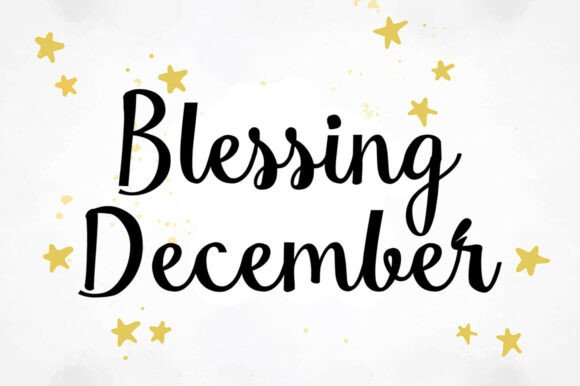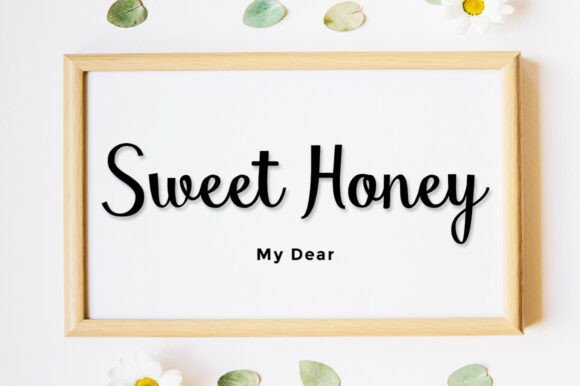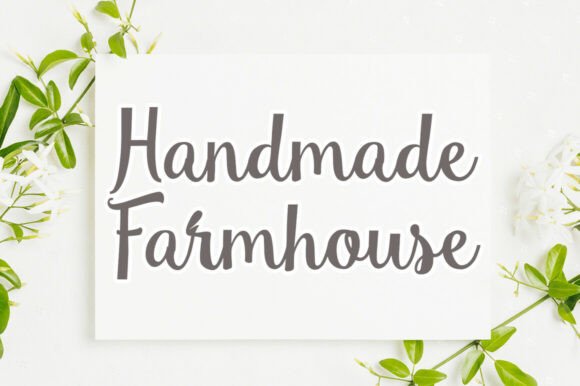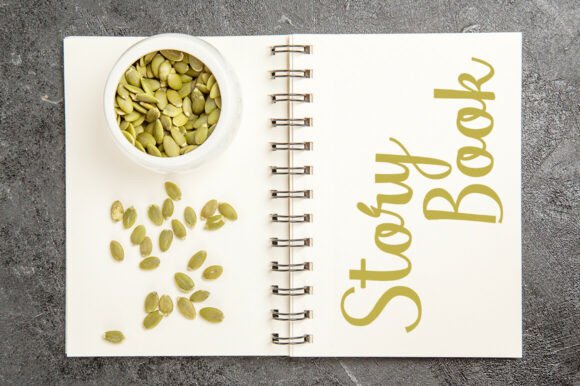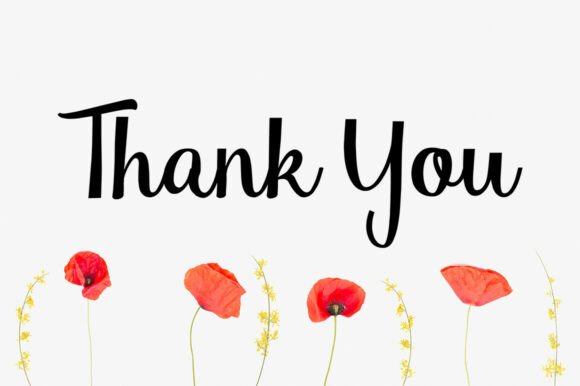
Introduction to Money Maker Font
You’ve spent hours agonizing over the perfect design for your latest project, pouring your heart and soul into every detail. And then, it happens – you find the perfect font. The one that makes your design pop, that adds a touch of elegance and sophistication to your work. For many designers, this moment is pure magic, and it’s what makes all the hard work worth it.
One such font that can elevate your creative project to the next level is the Money Maker Font. This gorgeous handwritten font is a design resource that will make your work stand out through its elegant and curvy lines. Whether you’re working on a product packaging design, a branding project, or a social media post, the Money Maker Font is the perfect addition to give your design a sweet, handwritten touch.
Key Features of Money Maker Font
- High-quality design resource for creative projects, perfect for professional and personal use.
- Transparent background, allowing for easy customization and flexibility in your design.
- Designed with a modern and sleek aesthetic, making it ideal for a wide range of creative projects.
- Includes a range of characters, including uppercase and lowercase letters, numbers, and special characters.
- Resolution: High-resolution design, suitable for print and digital use.
Honest Review: Money Maker Font
- ✨ The font has a clean and modern design that’s perfect for a variety of applications, from logos to typography-heavy websites.
- ✨ The transparent background makes it easy to use with different background images or colors, giving you more flexibility in your design.
- ✨ The font is highly customizable, with a range of weights and styles to choose from.
- ⚠️ The font may not be suitable for small text, as the letters can become quite thin and difficult to read.
- ⚠️ Some users may find the font’s modern style to be too trendy or overused.
Overall, I’m impressed with the Money Maker Font. While it may not be perfect, its high quality and versatility make it a great resource for designers. If you’re looking for a free font that’s perfect for creative projects, I’d definitely recommend giving it a try.
How to Use Money Maker Font
For optimal results, use the Money Maker Font in conjunction with other design resources. Experiment with different font sizes, colors, and combinations to create unique and eye-catching designs.
The Money Maker Font is ideal for a variety of creative projects, including:
1. Business cards and marketing materials.
2. Social media graphics and advertisements.
3. Blog posts and articles.
4. Infographics and presentations.
Alternatives to Money Maker Font
Compared to Money Maker Font, Arcade Font has a more minimalistic approach, making it suitable for a wider range of design applications. It lacks the bold, attention-grabbing feel of Money Maker Font but provides a more subtle and sophisticated look.
Freestyle Script Font
The Freestyle Script Font is a high-quality, elegant script font that is perfect for creative projects requiring a touch of sophistication. It features a transparent background and is ideal for use on design resources such as invitations, posters, and business cards.
Compared to Money Maker Font, Freestyle Script Font has a more refined and luxurious feel, making it suitable for high-end design applications. It lacks the bold, energetic feel of Money Maker Font but provides a more sophisticated and elegant look.
Can I use the Money Maker Font for web design?